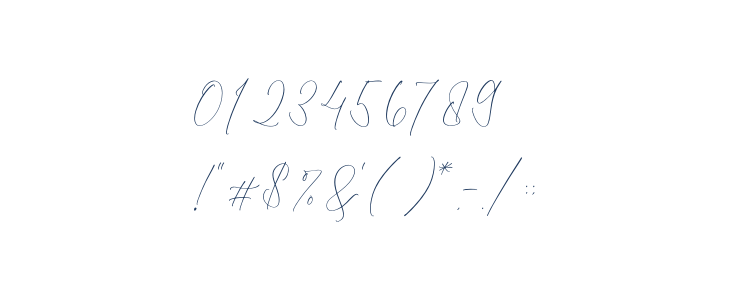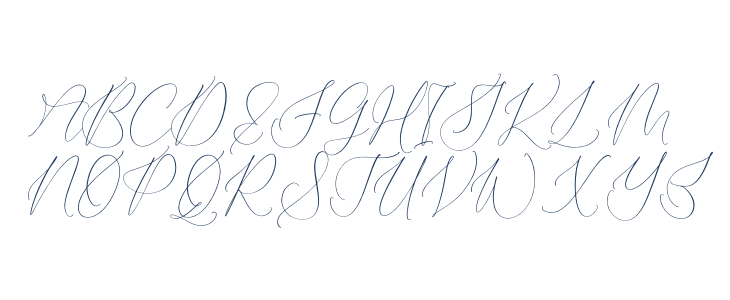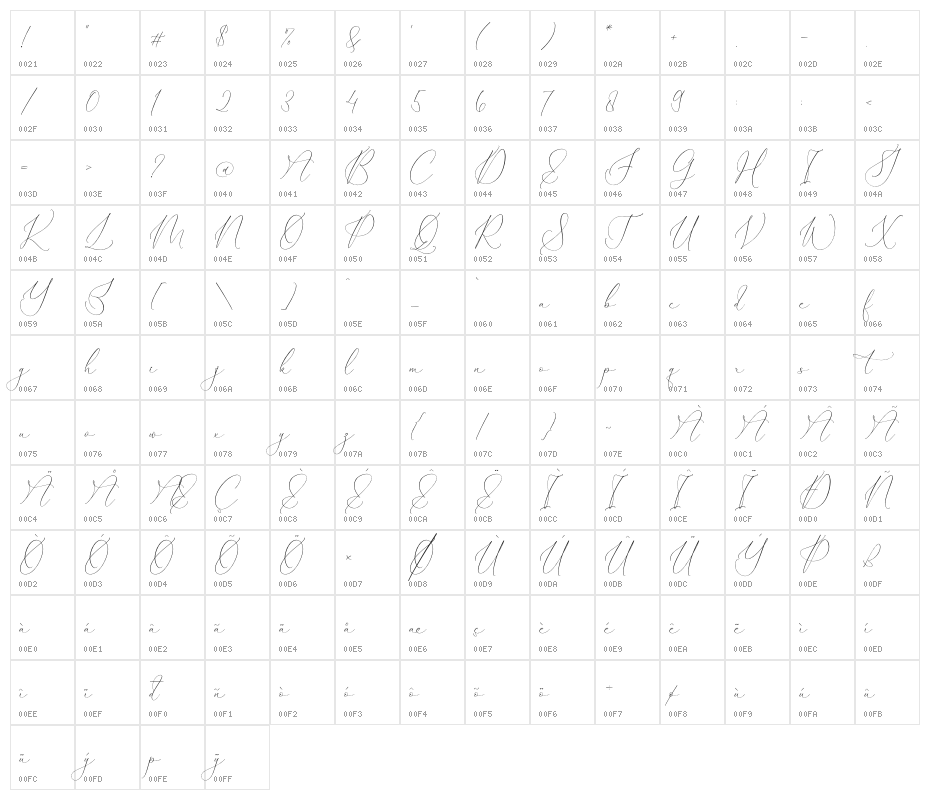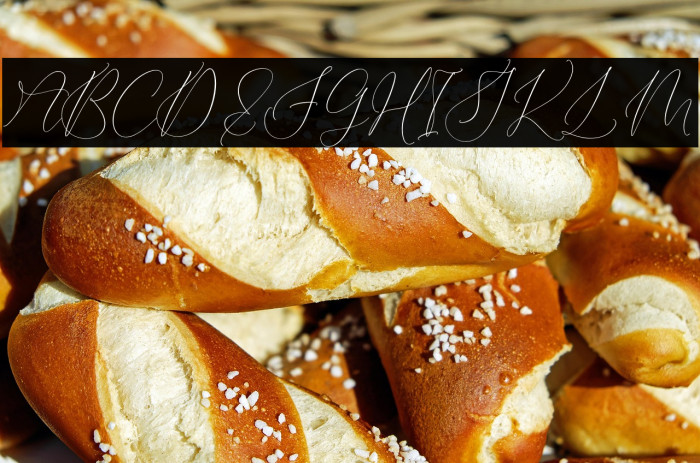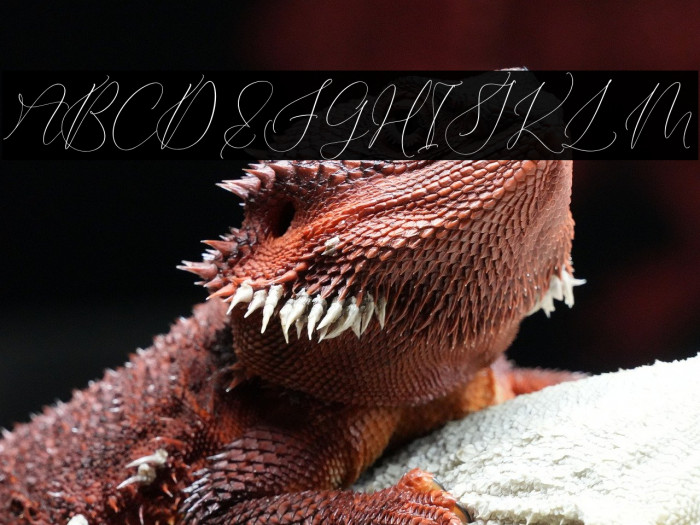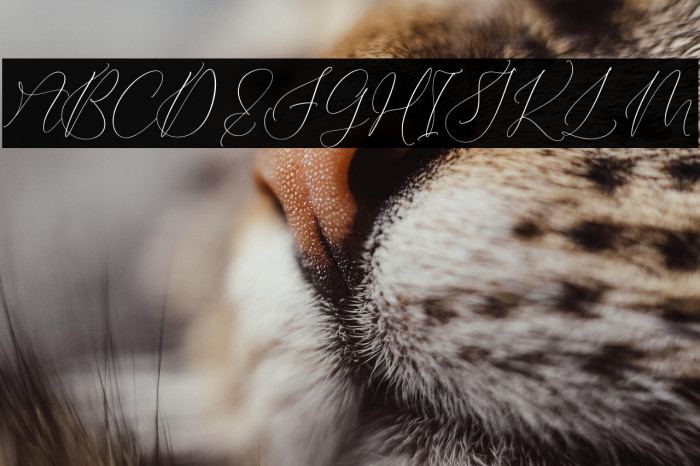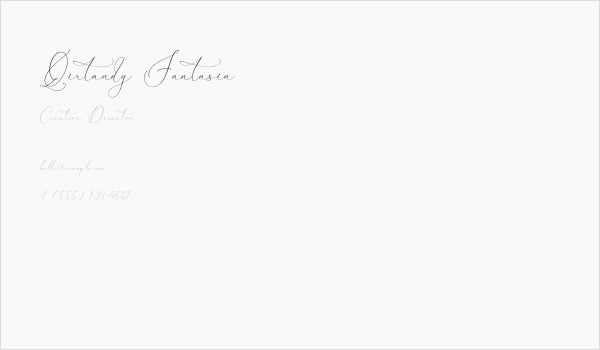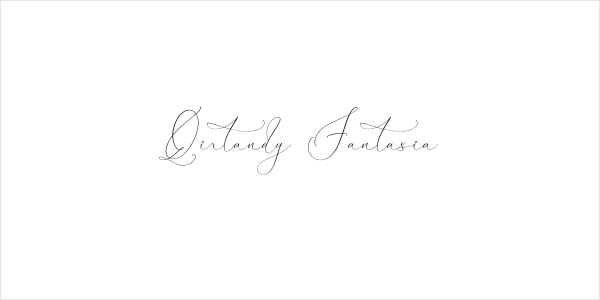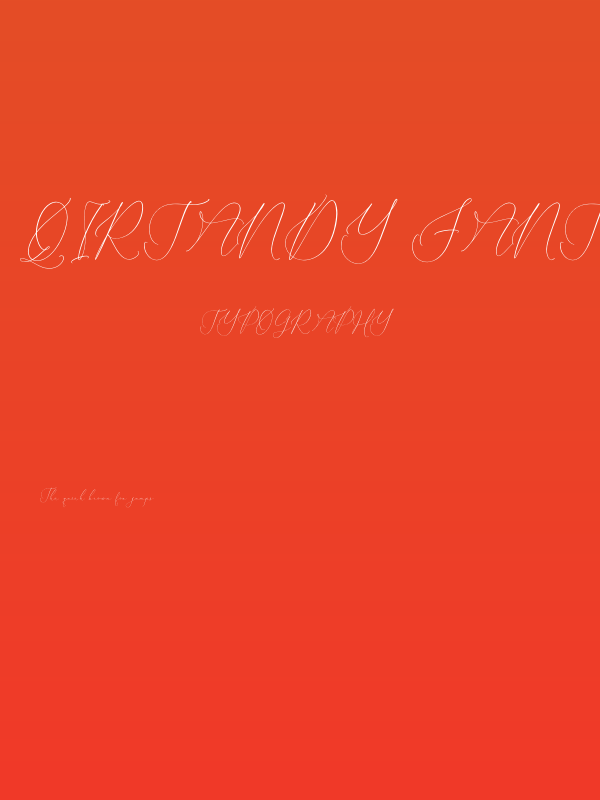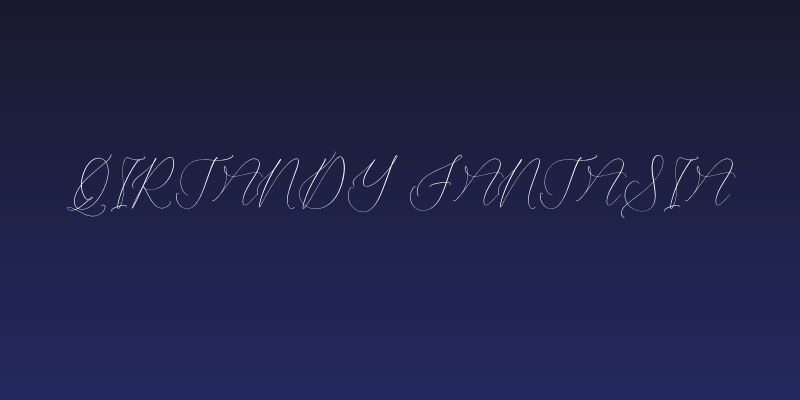
Qirtandy Fantasia Font
Qirtandy Fantasia Description
Elegant, flowing script with delicate, thin strokes and high contrast, featuring ornate swashes and a handwritten, calligraphic appearance. The characters are connected in a cursive style, with tall ascenders and deep descenders, creating a graceful and airy look.
| Overall Style | Decorative, Elegant, Handwritten |
| Use Case | Logos, Invitations, Decorative headings |
| Proposed Projects | Wedding invitations, luxury branding, greeting cards, elegant event signage, personal stationery. |